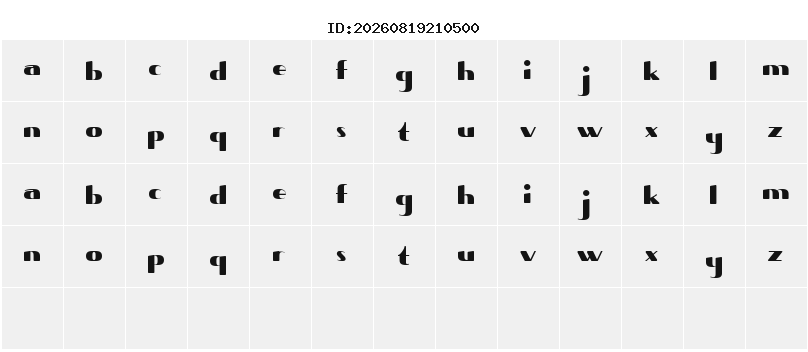
Shave Preview
• Font Name: Shave
• Font ID: Macromedia Fontographer 4.1 Shave Normal
• Full Font Name: Shave Normal
• Version: Macromedia Fontographer 4.1 7/27/98
• PostScript Name: ShaveNormal
• Copyright: Shave. Gotta shave.
About Shave.ttf
Shave.ttf is a modern, elegant sans-serif font designed for ultimate readability and visual harmony. Perfect for branding, headlines, web design, and print materials.